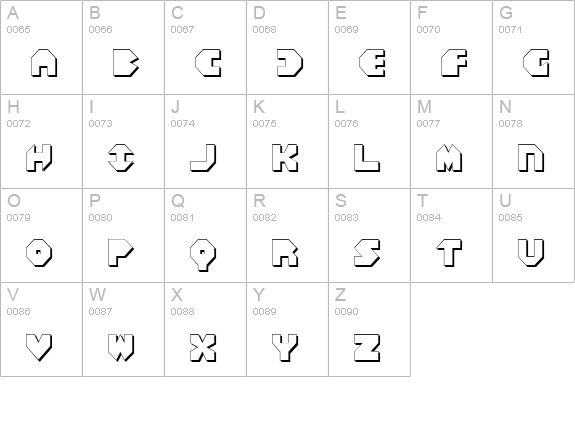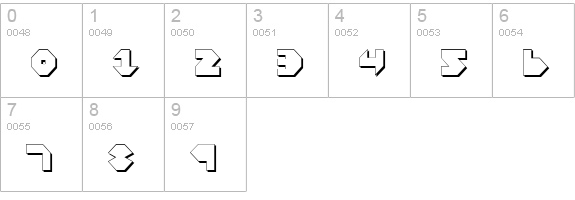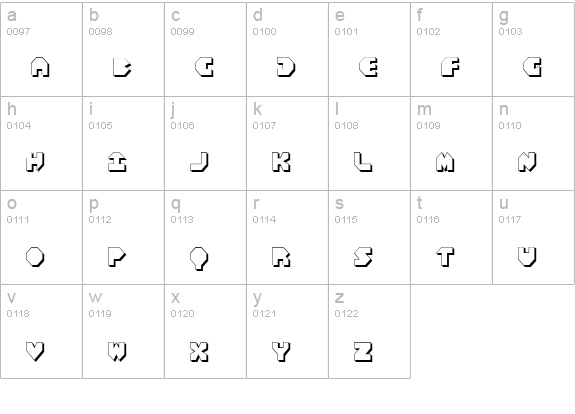
Introducing Bal-Astaral 3D font, a captivating and dynamic typeface that brings a futuristic and edgy touch to any design project. This innovative font features sleek 3D effects that add depth and dimension, making it perfect for logos, headlines, posters, and more. The sharp angles and bold lines of Bal-Astaral 3D font exude a modern and cutting-edge vibe that is sure to grab attention. What's even better is that Bal-Astaral 3D font is available for free download at FontsMarket.com. Yes, you read that right - you can get your hands on this striking font without spending a dime. Whether you're a designer looking to add a unique flair to your creations or simply a font enthusiast exploring new styles, Bal-Astaral 3D font is a must-have addition to your collection. Don't miss out on the opportunity to elevate your designs with the futuristic charm of Bal-Astaral 3D font. Download it for free today and unleash your creativity like never before!